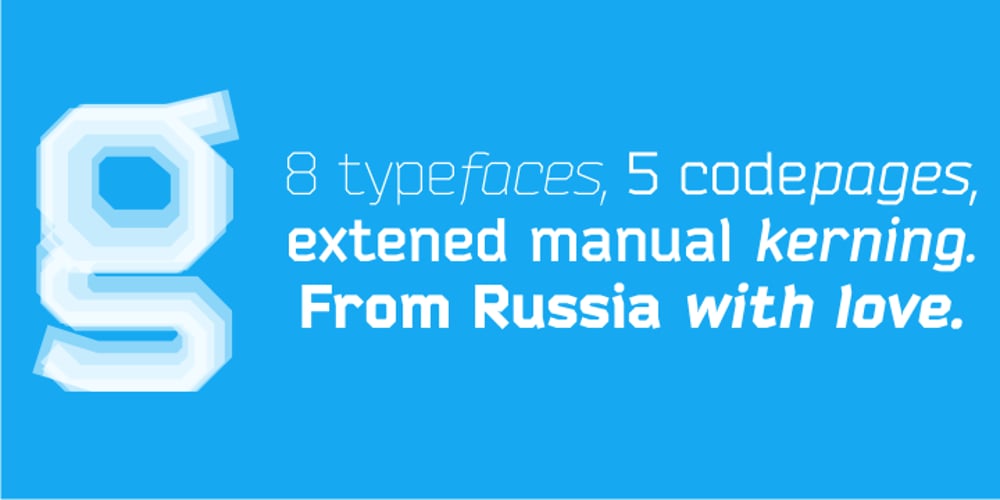
Bender Font Family was designed by Ivan Gladkikh, Oleg Zhuravlev and published by Jovanny Lemonad. Bender contains 8 styles and family package options. The Bender font family was created in Russia specially for graphic designers. Thanks to the unique form of signs, fonts of the given family it is possible to type texts, to do logos or headings.